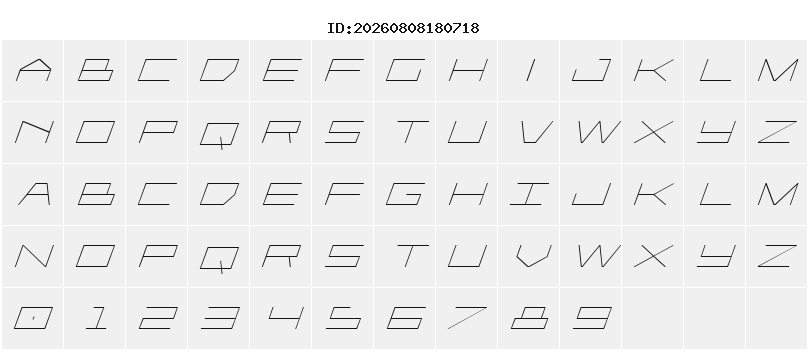
• Font Name: Player 1 Up Expanded Italic
• Font Style: Expanded Italic
• Full Font Name: Player 1 Up Expanded Italic
About Player 1 Up Expanded Italic.ttf
Player 1 Up Expanded Italic.ttf is a modern, elegant sans-serif font designed for ultimate readability and visual harmony. Perfect for branding, headlines, web design, and print materials.